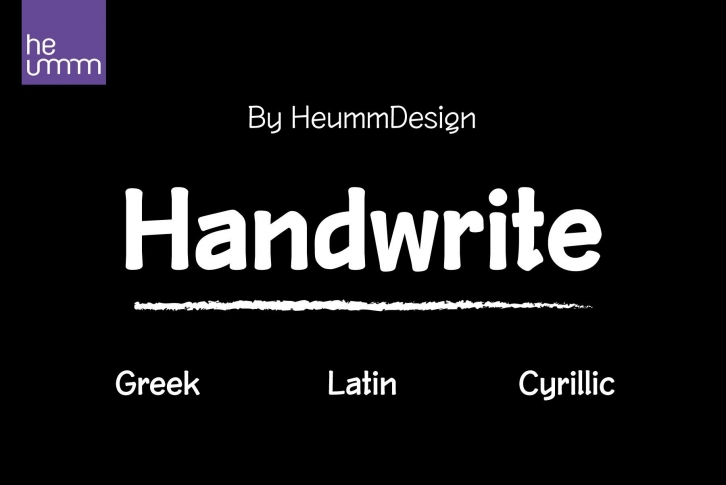
HU Handwrite KR is a handwriting-style font for body text that emphasizes gentleness and solidity with less curvature and a straighter feel. The personality of the handwriting was added through a style that made use of natural curves and stroke order, softness was added in the form of a gentle curve, and perspective was applied by setting a vanishing point in the lower left corner.